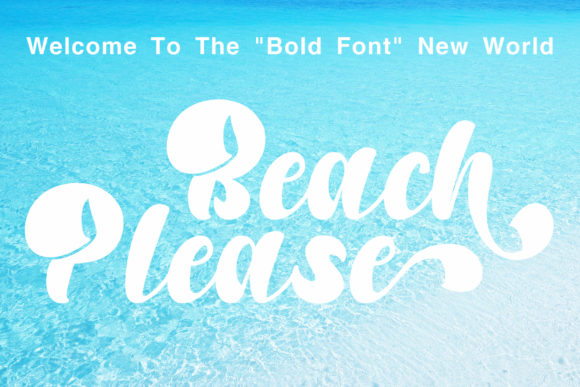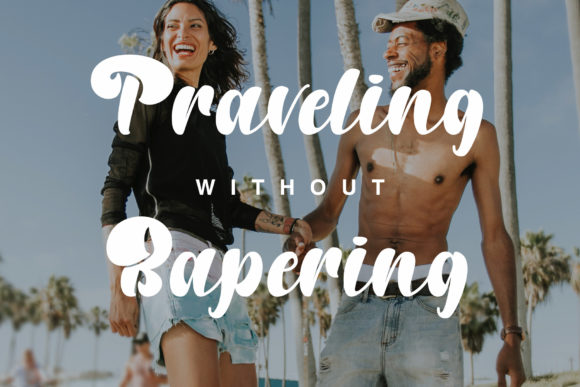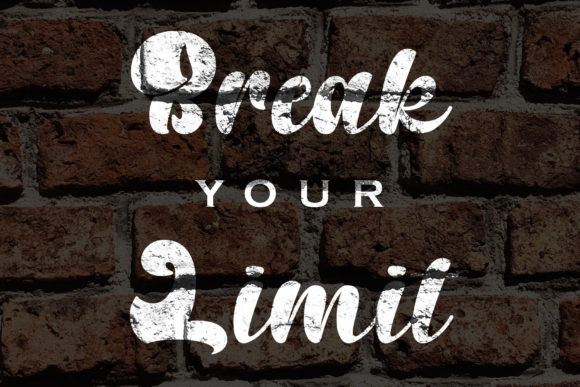
Introduction to Random but Perfect Font
You know that moment when you’re brainstorming ideas for a creative project and suddenly, something sparks? Maybe it’s a conversation with a friend, a random idea that pops into your head, or even stumbling upon a quirky design on social media. For designers, that spark often comes in the form of discovering a unique font that elevates their entire project. And that’s exactly what happens when you stumble upon the Random but Perfect Font.
This bold and fun handwritten font is more than just a pretty face – it’s a game-changer for designers looking to add an adventurous feel to their designs. With its high-quality design and transparent background, it’s the perfect design resource for anyone looking to take their creative project to the next level. And the best part? It’s available for a free download, making it an accessible resource for designers of all levels.
Whether you’re working on a personal project or a client-based design, the Random but Perfect Font is sure to turn heads and make your design stand out from the crowd.
Key Features of Random but Perfect Font
- Unique, hand-crafted font with a transparent background for seamless integration
- Perfect for use in various design applications, including graphic design, digital art, and publishing
Honest Review: Random but Perfect Font
I recently stumbled upon the Random but Perfect Font, and I must say it’s a game-changer for designers. As a design resource enthusiast, I’m always on the lookout for unique and high-quality fonts to elevate my creative projects.
The font is available for free download, which is a major plus. It’s also available with a transparent background, making it super easy to work with in any design scenario.
What works well: ✨ The Random but Perfect Font has a quirky and playful feel that adds a touch of personality to any design project. It’s perfect for creatives who want to add some whimsy and fun to their work.
However, I did encounter a few limitations: ⚠️ The font is not as versatile as some other fonts I’ve used in the past. It’s best suited for projects that require a bold, eye-catching look.
Overall, I’m really impressed with the Random but Perfect Font. It’s a great addition to any design arsenal, and I’ll definitely be using it in my future creative projects.
Pros:
- Unique and playful design
Cons:
- Not as versatile as other fonts
- May not be suitable for all design projects
How to Use Random but Perfect Font
To get the most out of the Random but Perfect Font, use it on a transparent background to create a unique and creative effect. Experiment with different font sizes and styles to create a visually appealing design. You can also use the font in combination with other design elements to create a cohesive and professional-looking design.
The Random but Perfect Font is suitable for various creative projects, including graphic design, digital art, and print design. It can be used for business cards, flyers, posters, and other marketing materials. The font’s unique style and high-quality design make it an excellent choice for designers looking for a distinctive and eye-catching font.
Yes, the Random but Perfect Font is designed to be highly legible on both light and dark backgrounds, including those with a transparent background. You can use it on your website, social media, or any other digital design project.
Is the Random but Perfect Font a high-quality design resource?
Yes, the Random but Perfect Font is a high-quality design resource that’s perfect for any creative project. It’s carefully crafted to provide a unique and visually appealing look, and it’s optimized for use in a variety of design applications.